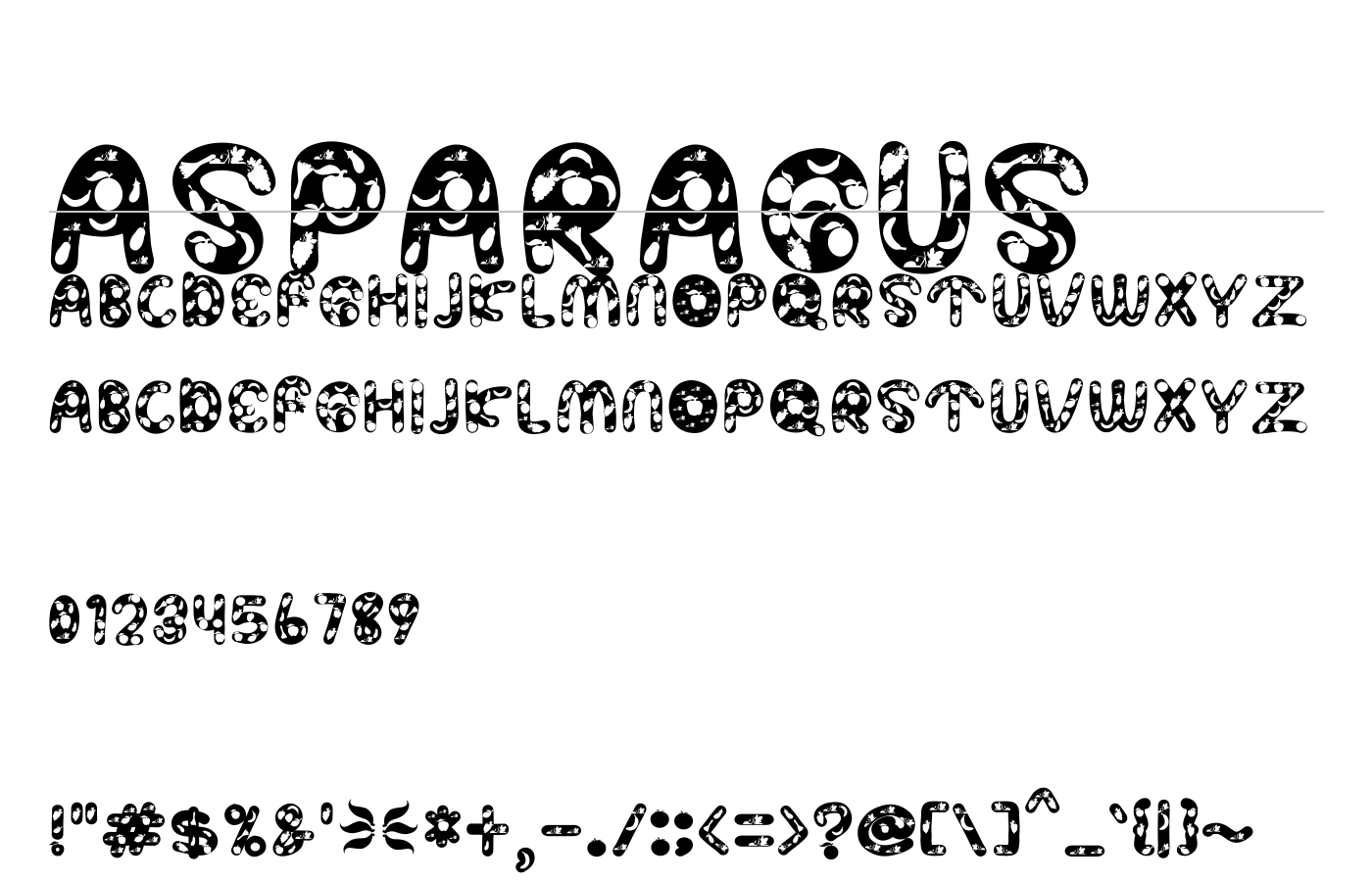
Asparagus is a playful, bold display font with rounded, chunky letterforms filled with whimsical vegetable motifs that give it a fun, quirky personality. Its heavy weight and decorative style make it ideal for eye-catching headlines, food packaging, or any design needing a lighthearted, organic touch. This font is perfect for brands that want to convey freshness and creativity with a unique, friendly vibe.
ASPARAGUS Font